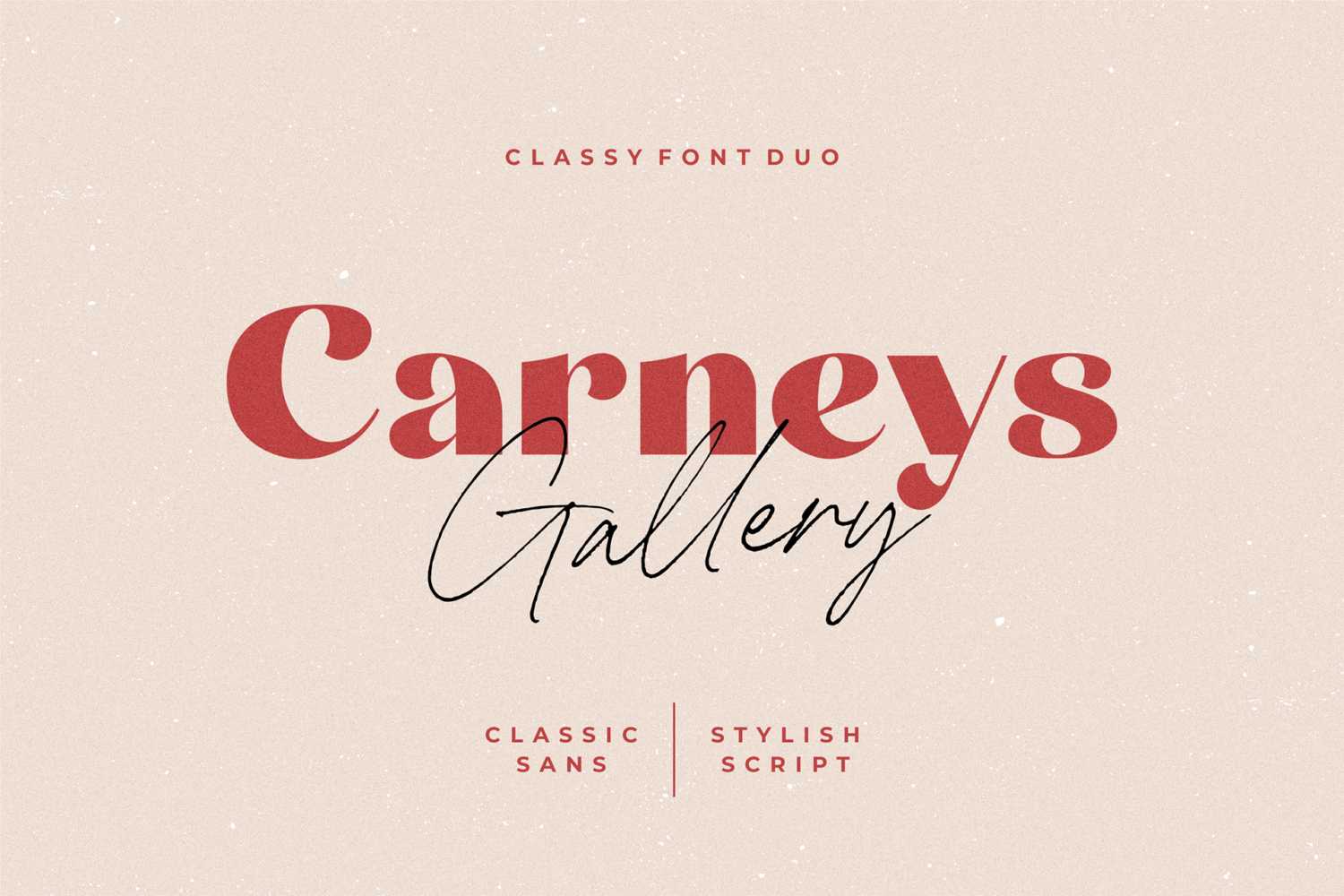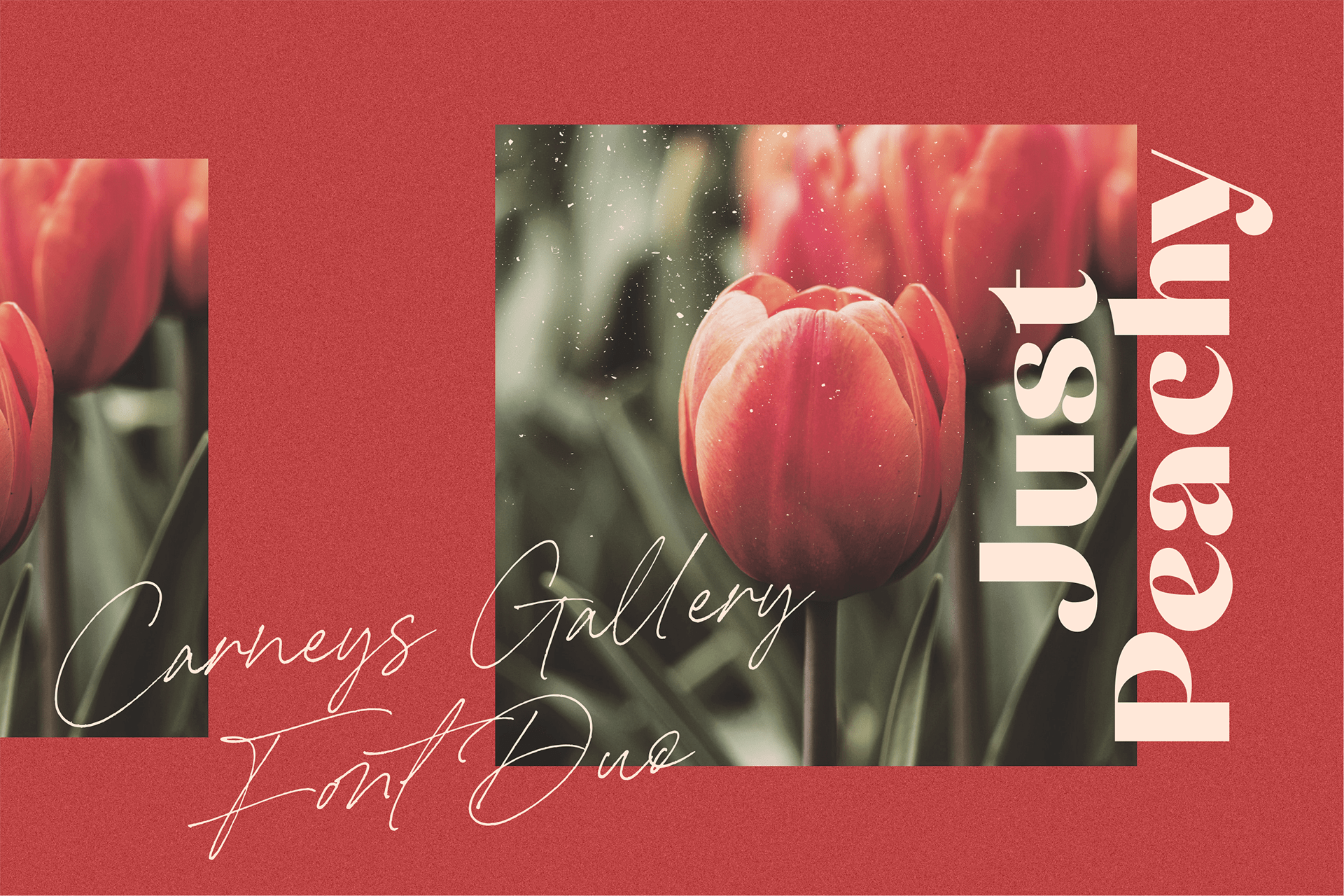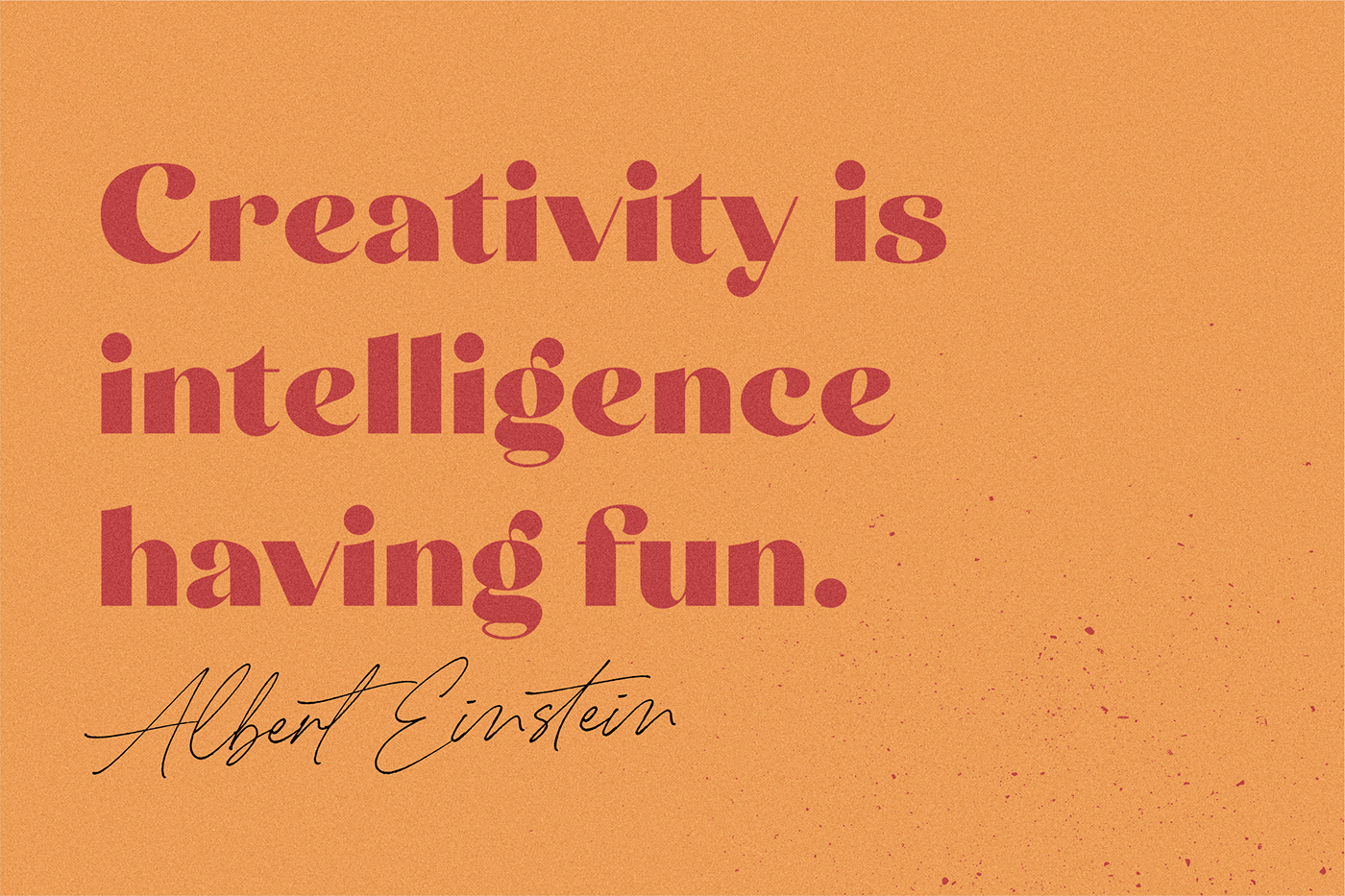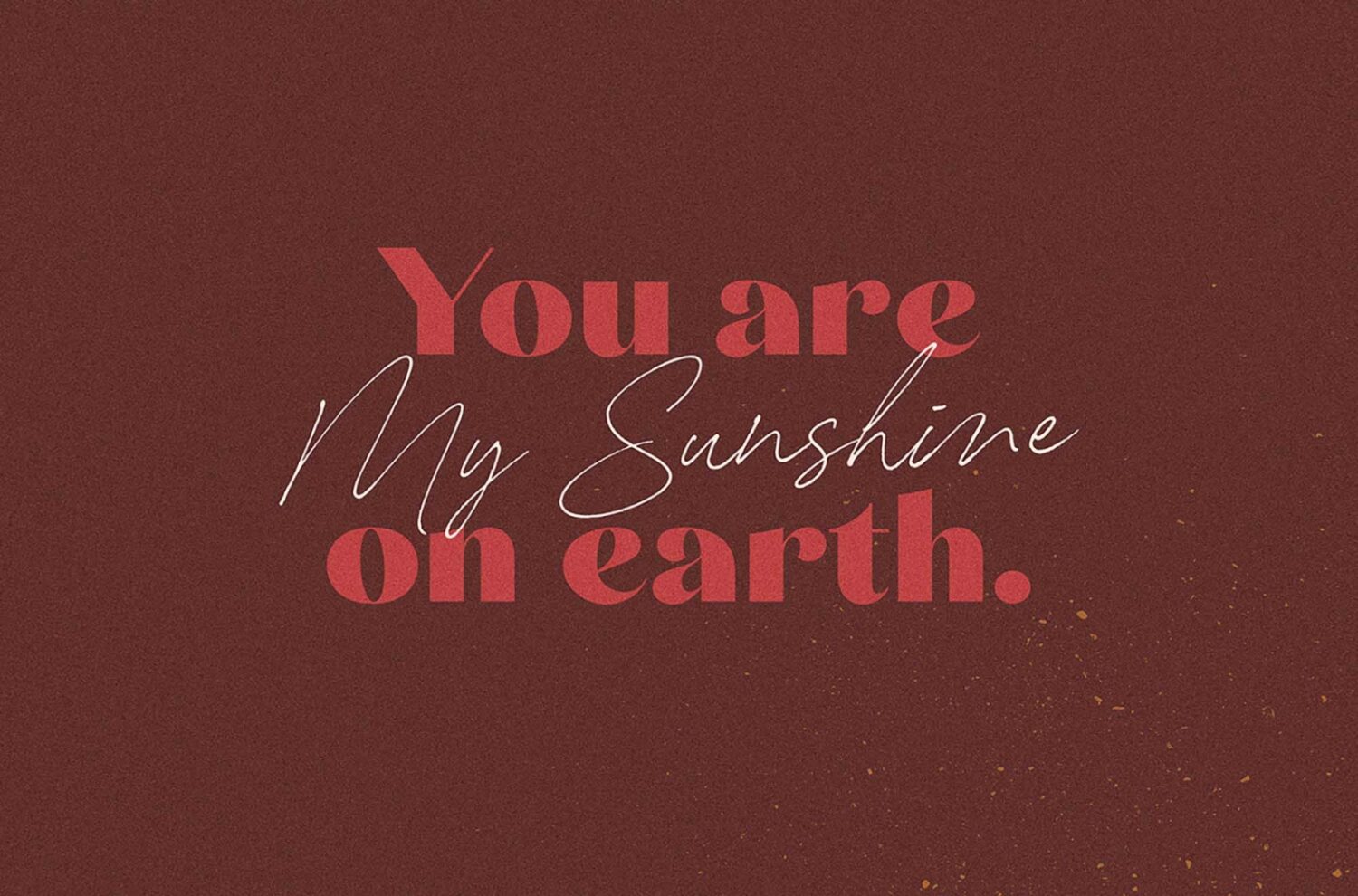
Free Carneys Gallery Font Duo
The Letteralle Studio is back with a free demo font which is Free Carneys Gallery Font Duo. It is a free demo font that you can use on your project based on the license. This free font is coming with a personal use license, but go get more features by purchasing it. Make your own projects look more luxurious and professional. So, it is suitable for wedding invitation, gift cards, branding, menu, packaging, and more. This font is available for the OTF format file that you can install and use it on your devices.